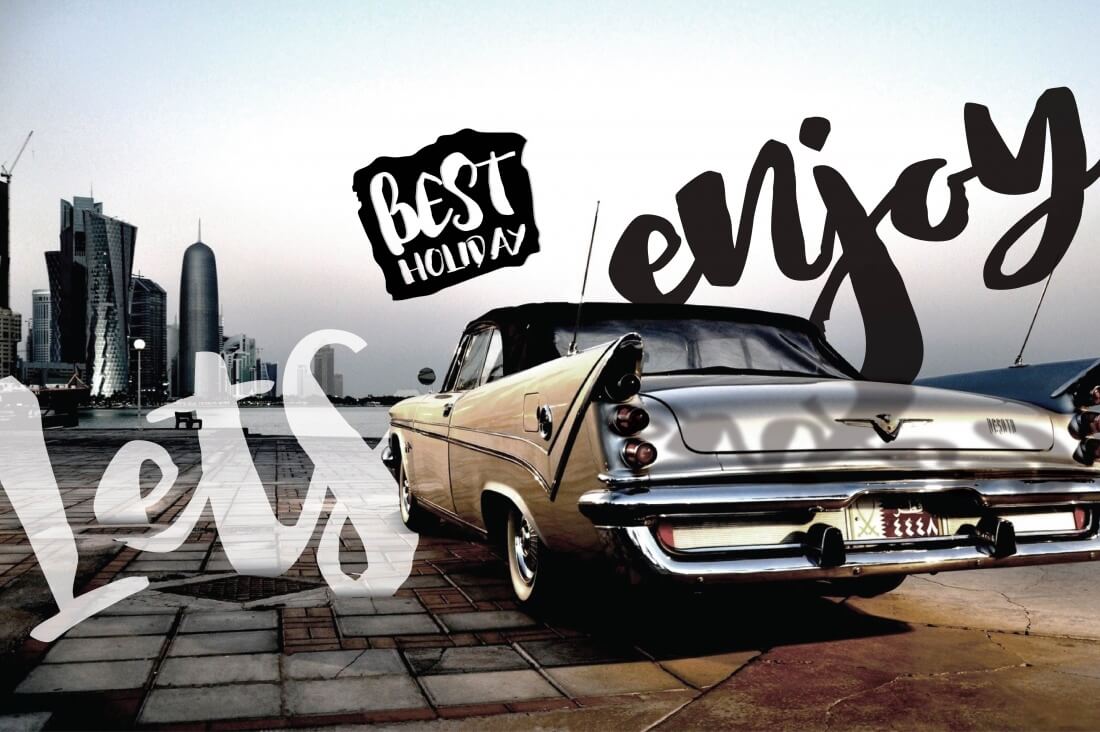
8 Fresh Script Fonts from Rabbittype - only $12!
Add some serious elegance to your Typeface Library with this gorgeous bundle! With this Mighty Deal from Rabbittype, you'll get yourself 8 fantastic fonts for 1 incredibly low price. You'll get a nice variety of styles, as well as various OpenType features to really mix things up nicely.
- Get a fantastic font collection of 8 high-quality, professional typefaces: Ricca, Nella, Kingfont, Love Sania, Shizuka, Angellife, Nightgirls, Silliza.
- Handwritten script fonts add a real natural look to your work.
- These fonts are great to use on a variety of projects including wedding invitations, posters, tattoos, logos, greeting cards, product packaging, T-shirts, watercolor designs and more!
- Includes: upercase, lowercase, numerals, punction, international glyphs, contextual alternates, stylistic sets. Support PUA With Unicode.